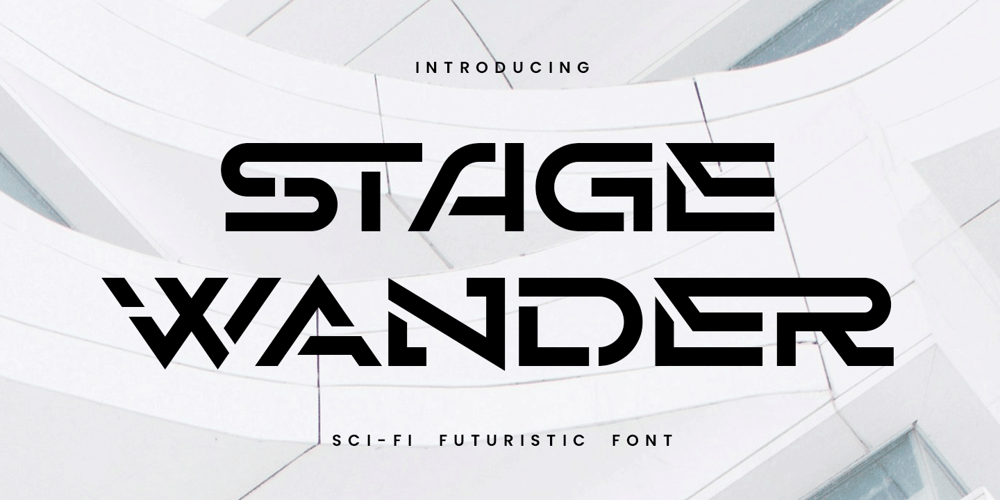
Stage Wander Font Family was designed by Ahmad Ramzi Fahruddin and published by Arterfak Project. Stage Wander contains 1 styles and family package options. Take your design on a space journey with ‘Stage Wander’. This geometric concept and stencil design offers dynamic looks and a sci-fi touch. The letterform features strong shapes, perfect for titles or displays.It also includes stylish ligatures that will make your design look more hi-tech and sporty! Use this font for posters, flyers, logos, signage, movie posters, covers, banners, and more.Fonts featured : All capitals character Numbers & punctuation Symbols & accented characters Stylistic alternates Ligatures